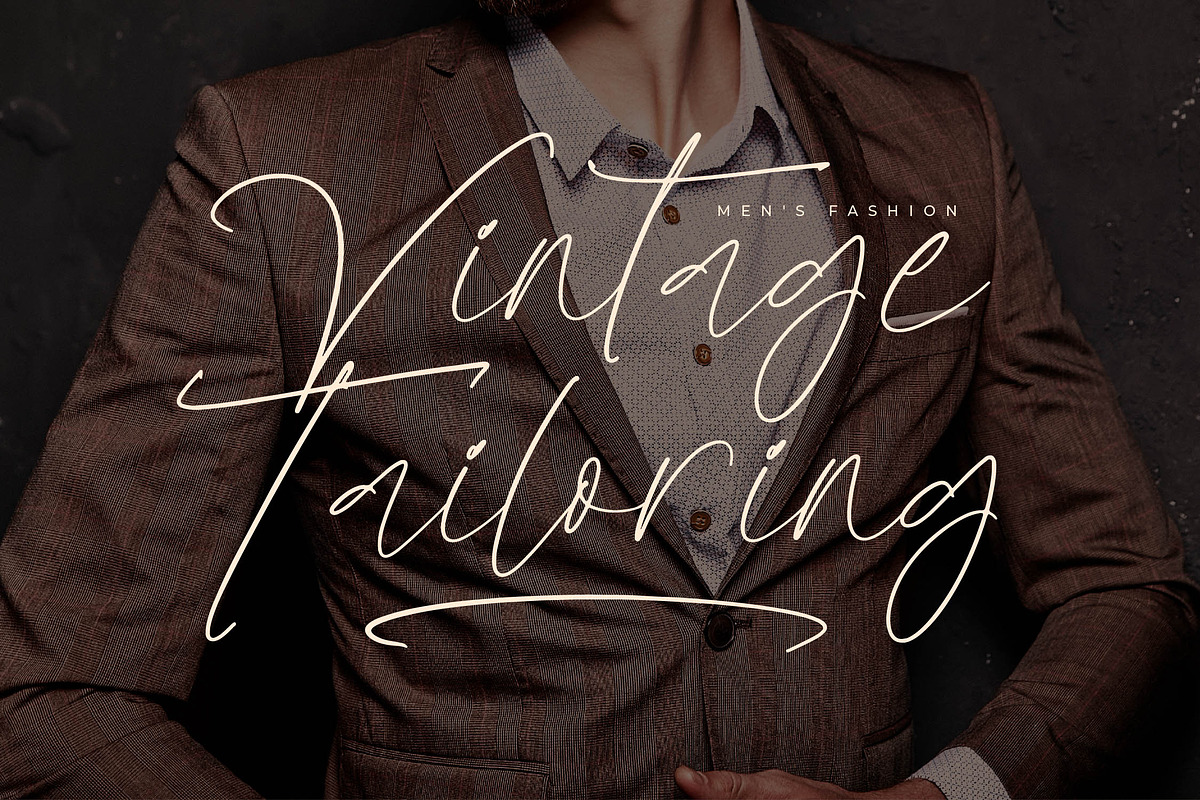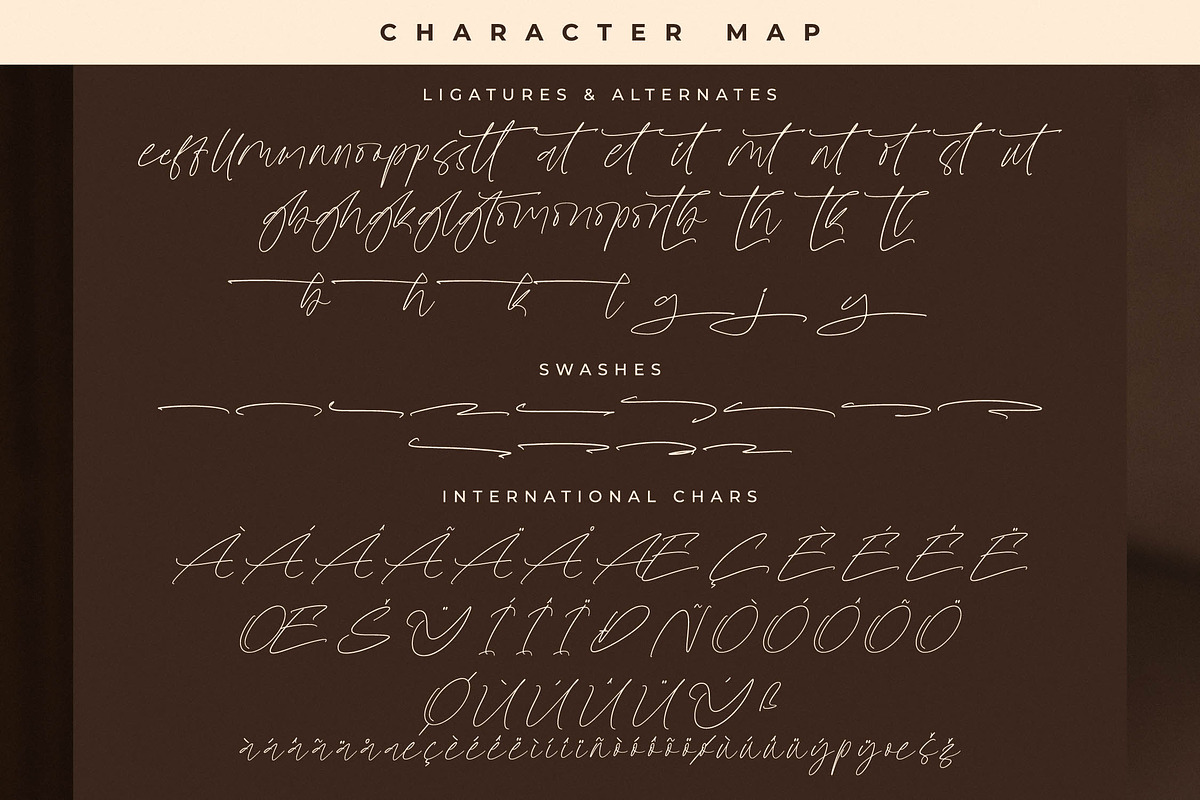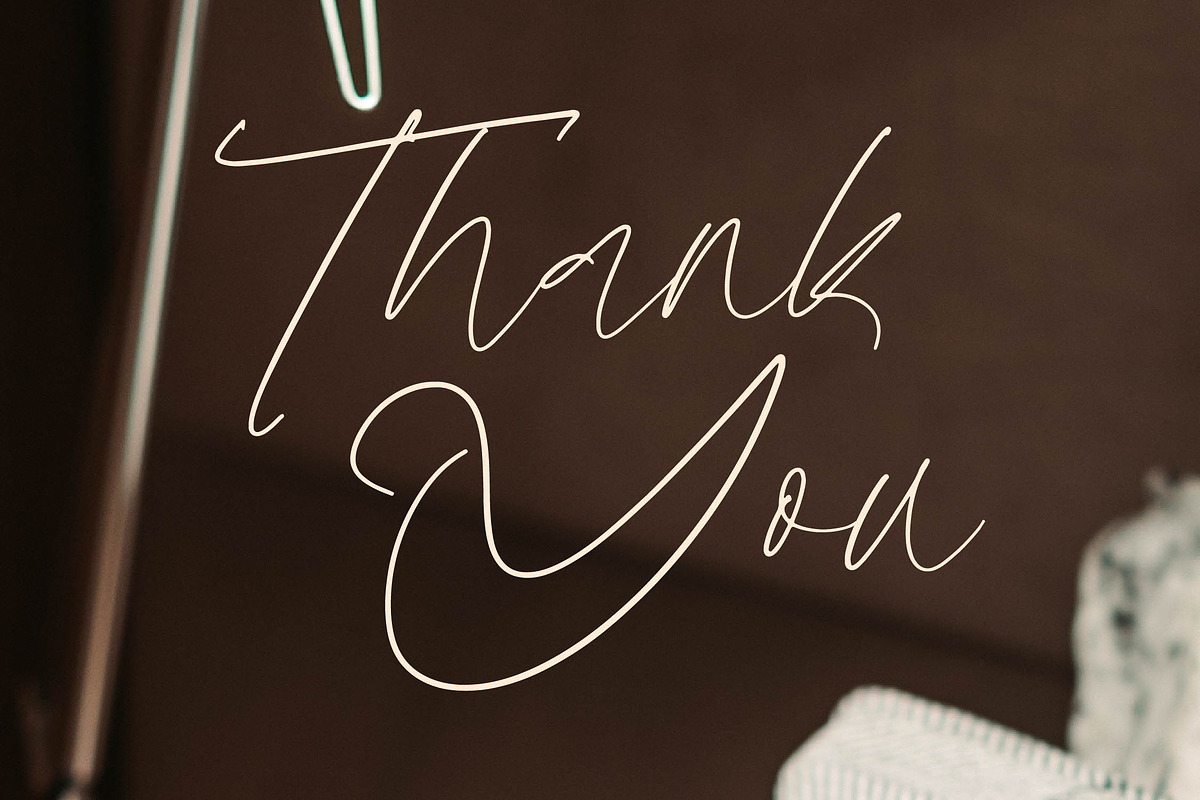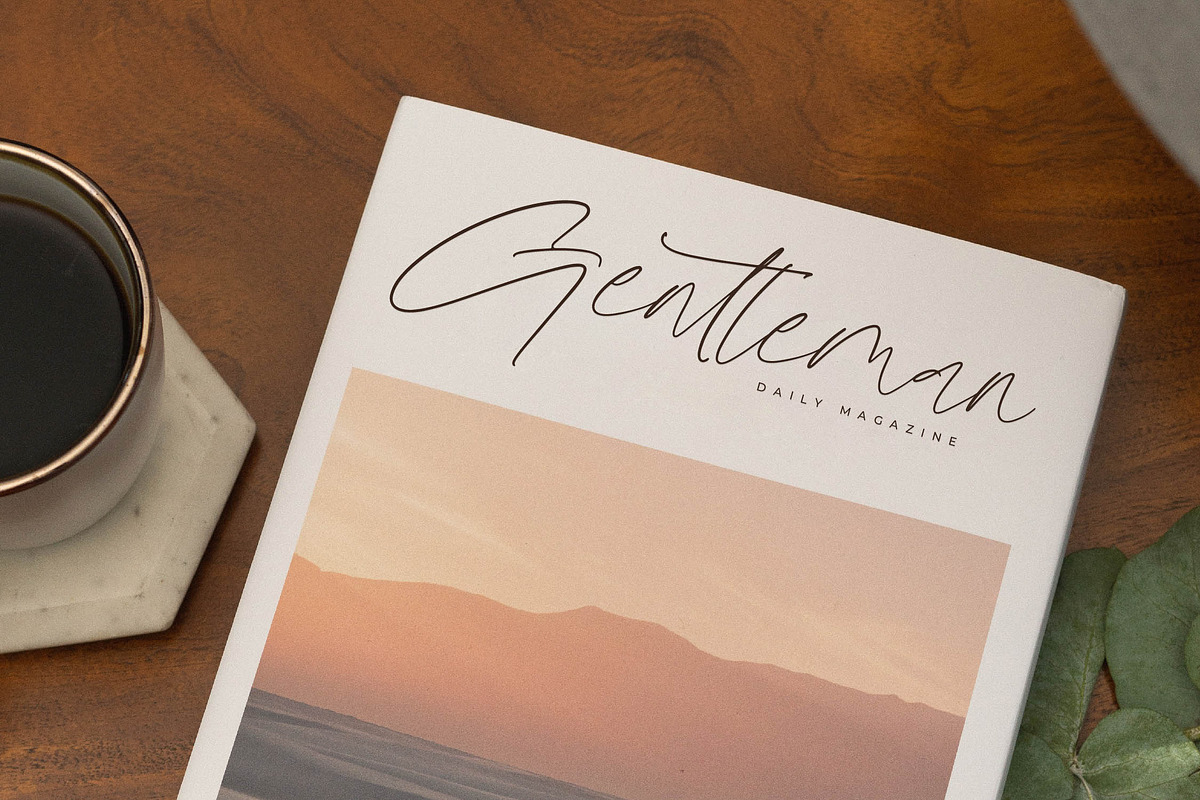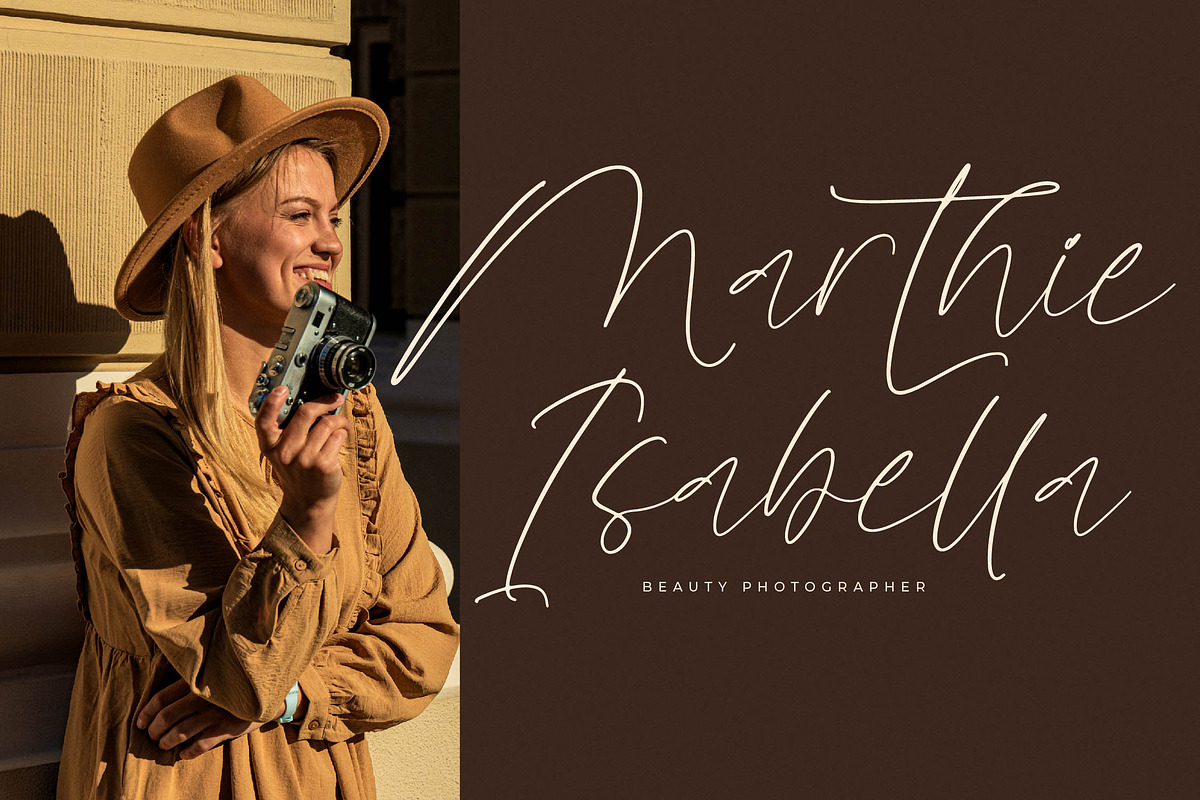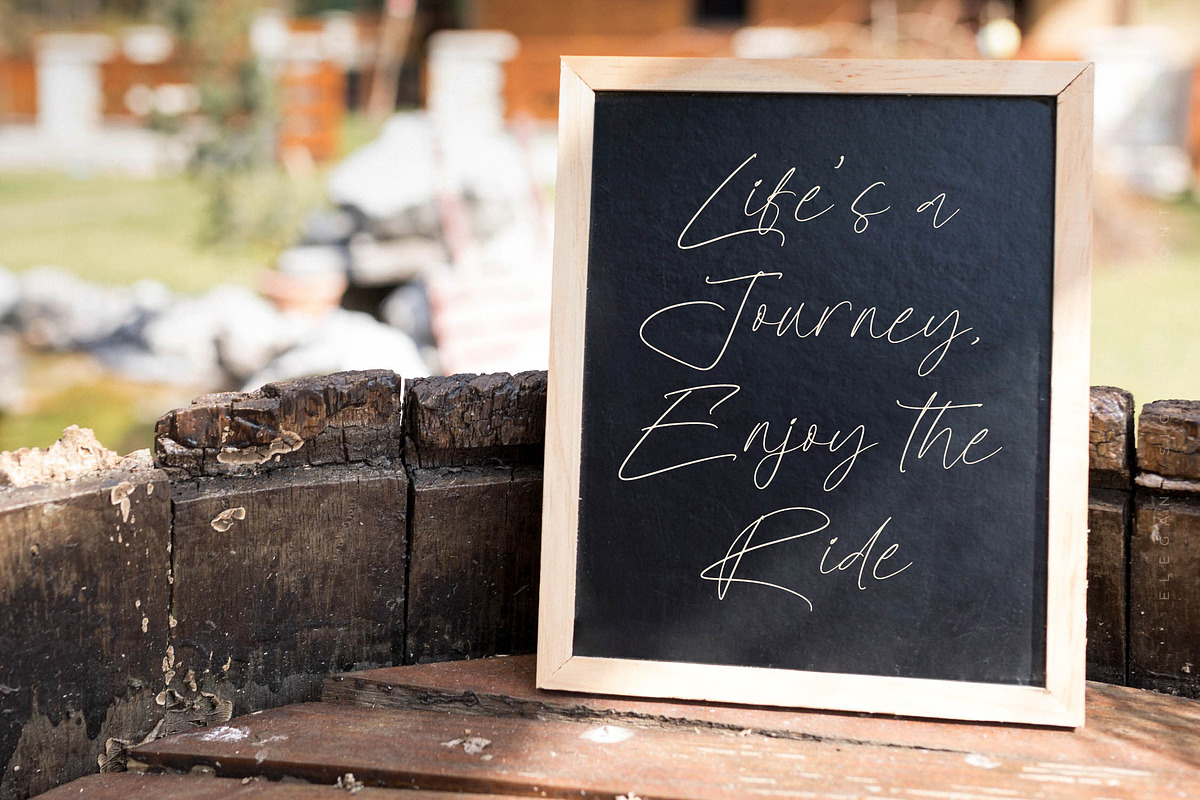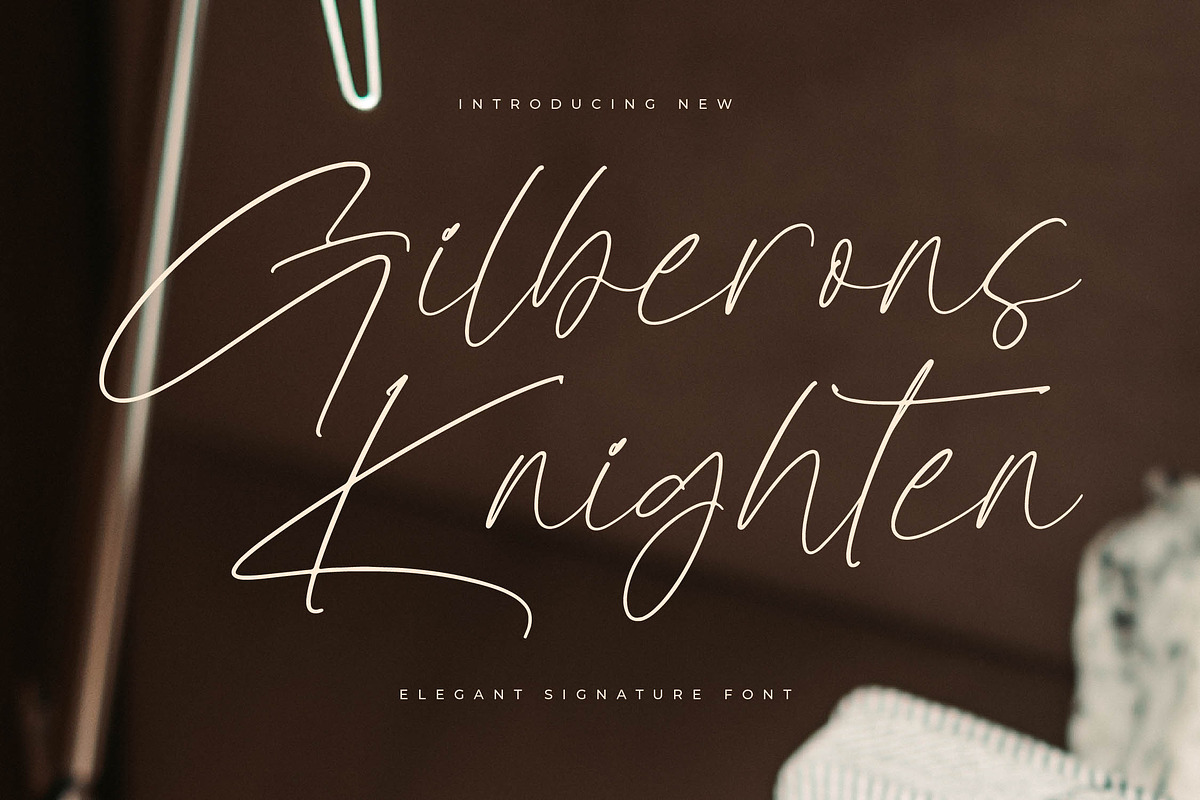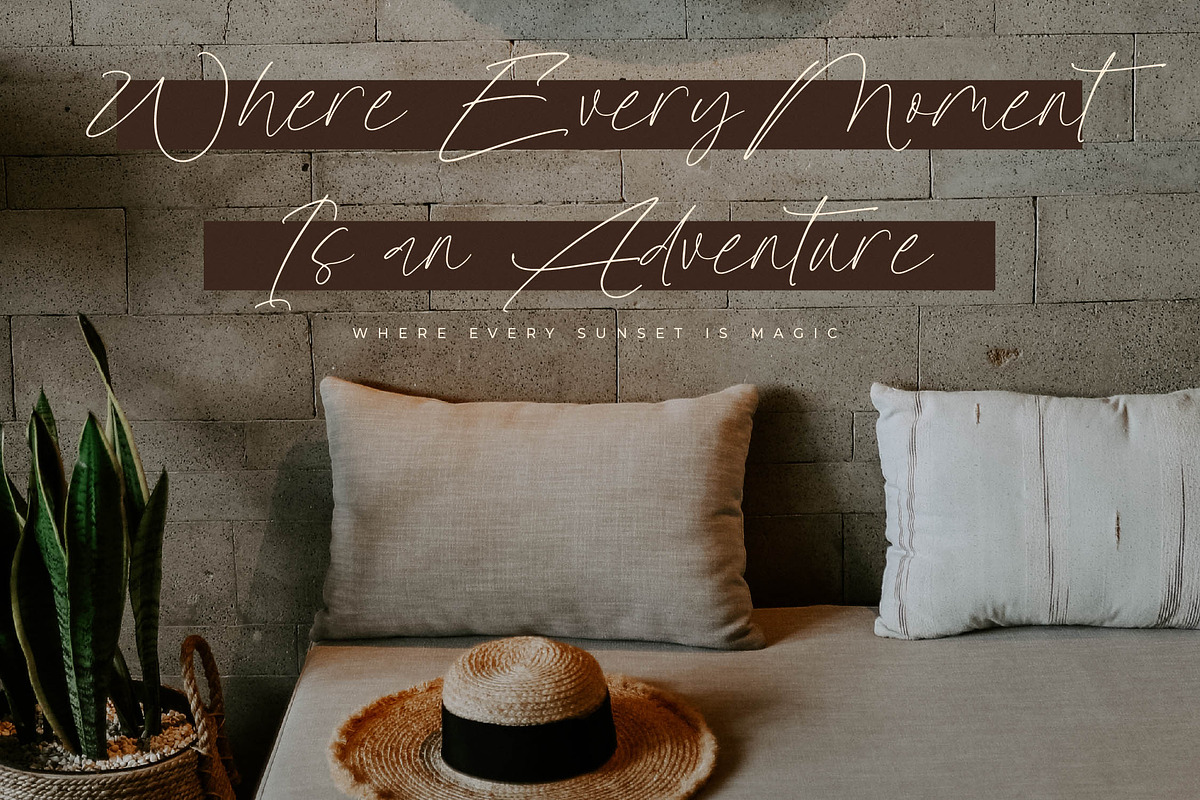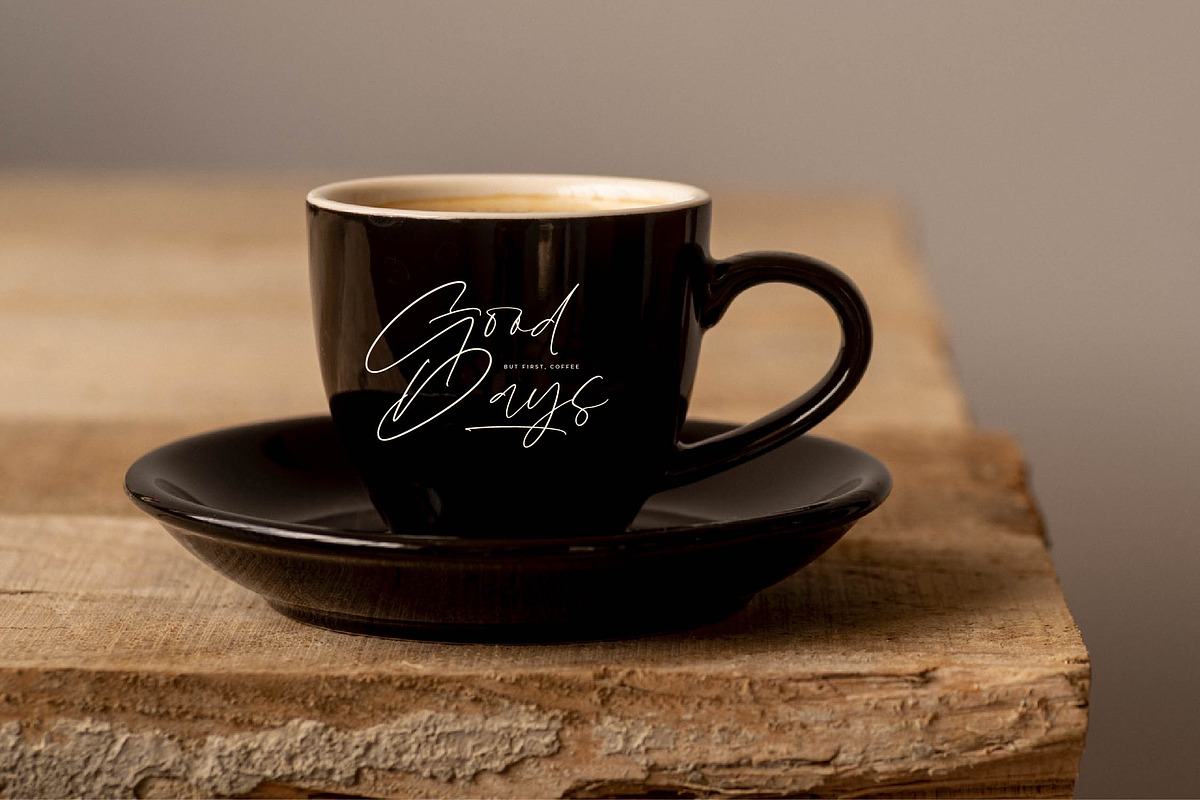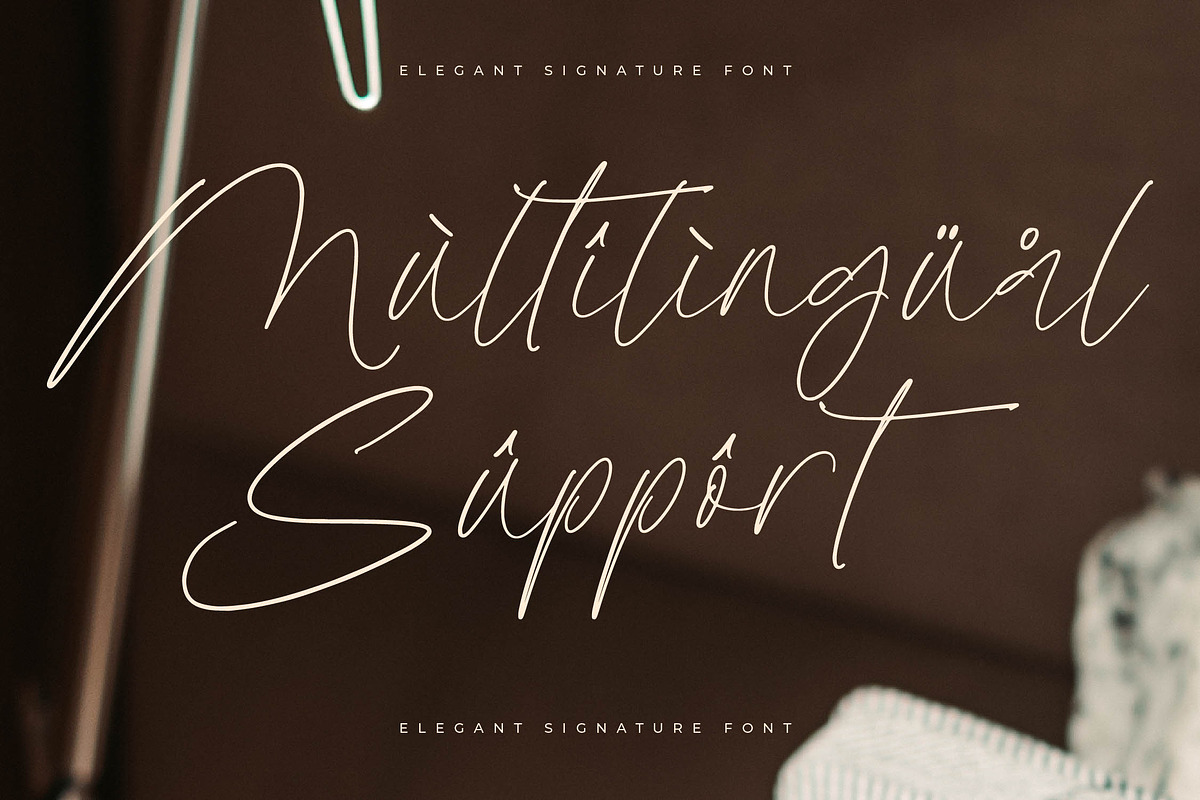
Gilberons Knighten Elegant Signature
Gilberons Knighten – Elegant Signature Script , from Letterena, is a Luxury Script font, suitable for any projects such as: logos, branding projects, homeware designs, product packaging, mugs, quotes, posters, shopping bags, t-shirts, book covers, name card, invitation cards, greeting cards, label, photography, watermark, special events, and all your other luxury and beautiful projects that need a Luxury Script taste.